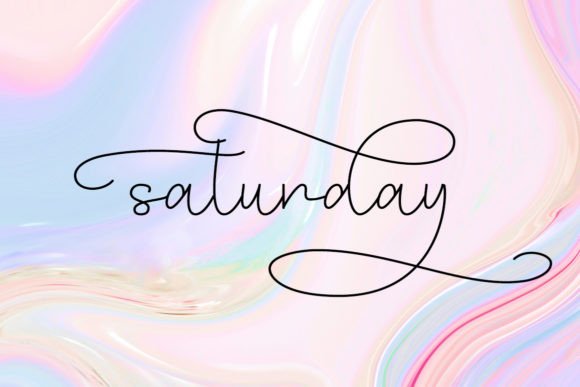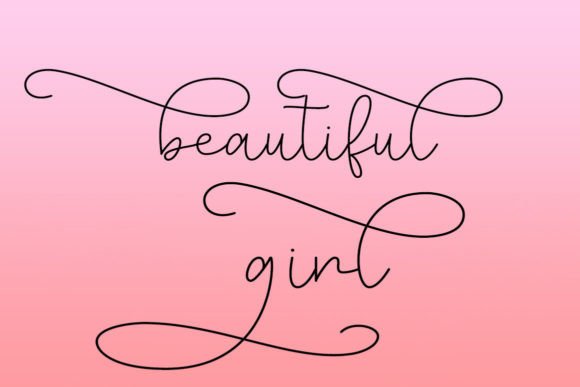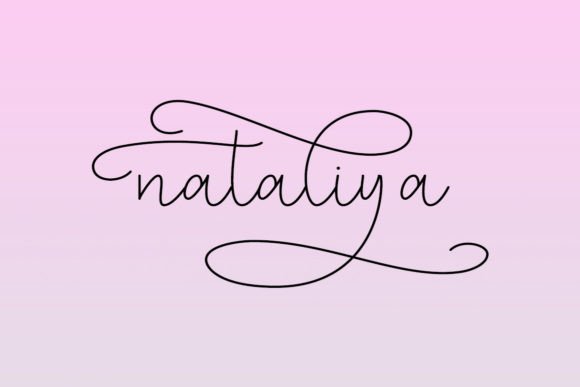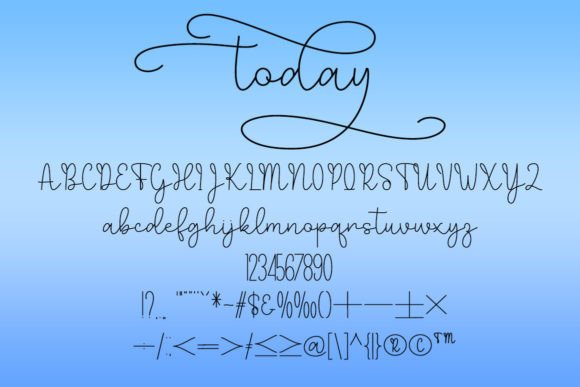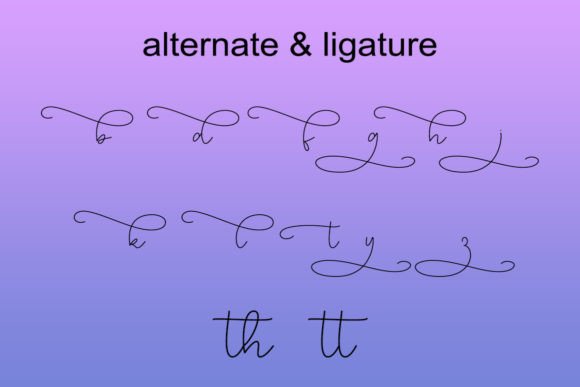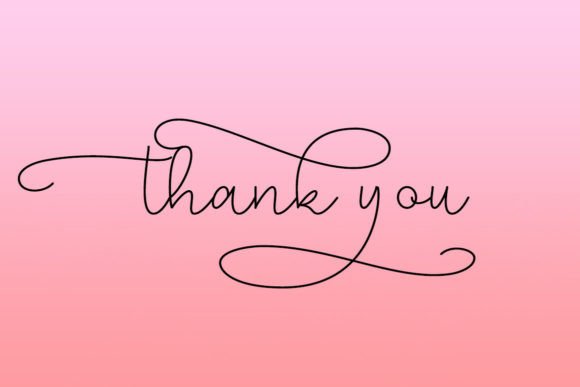
Today Font
About Today Font
“Today” is an enchanting handwritten font that holds the potential to elevate a wide range of creative projects. Its charm and versatility make it a valuable addition to your design toolkit, suitable for various applications such as logos, branding, quotes, clothing designs, tote bags, business cards, websites, and more.
The appeal of “Today” lies in its ability to infuse your projects with an enchanting and handwritten touch. This font adds a unique and captivating aesthetic to your designs, making them visually appealing and memorable.
Whether you’re crafting a logo that needs an element of charm, designing a clothing brand with a distinct personality, creating quotes that resonate with authenticity, or working on various digital and print materials, “Today” is the typeface that can elevate your ideas and take your projects to the highest level.
Embrace “Today” with enthusiasm, and you’ll find that it has the power to enchant and captivate your audience while enhancing the overall quality and impact of your design projects, making them truly remarkable and unforgettable.